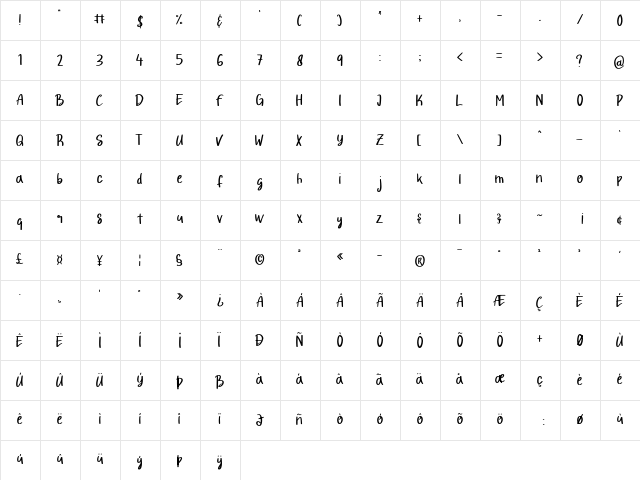
Funttastic Pop Regular
Design Context for Funttastic Pop Typeface
Funttastic Pop has an approachable, lighthearted character — its loose, expressive forms are well-suited to children's content, casual branding, and fun-first design.
Font Pairing: Pairs well with a rounded or humanist sans for body copy, maintaining the friendly tone without relying on Funttastic Pop to carry extended reading.
Pro Tip: Avoid using Funttastic Pop for long passages of text — it works best for headlines, labels, and short calls to action.